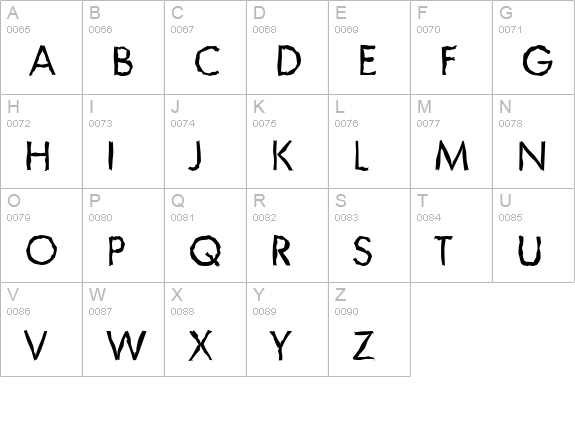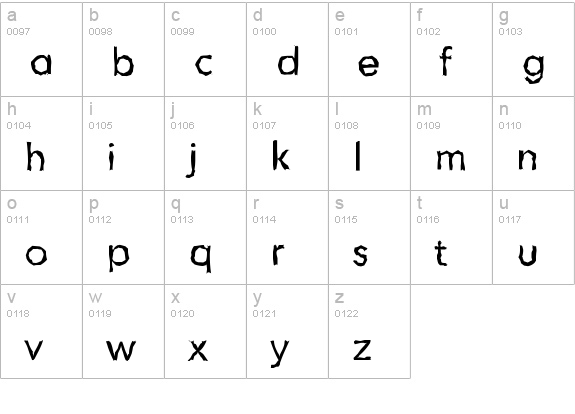
MontrealRandom-Regular is the standard, neutral variant in the MontrealRandom typeface family \xE2\x80\x94 well suited to general body text, paragraphs, and standard typographic work.
MontrealRandom-Regular font is a modern and versatile typeface that adds a touch of creativity to any design. Its unique and playful appearance makes it perfect for a wide range of projects, from branding to packaging to social media graphics. With its irregular and random letterforms, MontrealRandom-Regular font brings a sense of dynamism and originality to your designs. What's even better is that MontrealRandom-Regular font is available for free download at FontsMarket.com. You can easily access this font and use it in your projects without any additional cost. So why wait? Give your designs a fresh and exciting look with MontrealRandom-Regular font today!